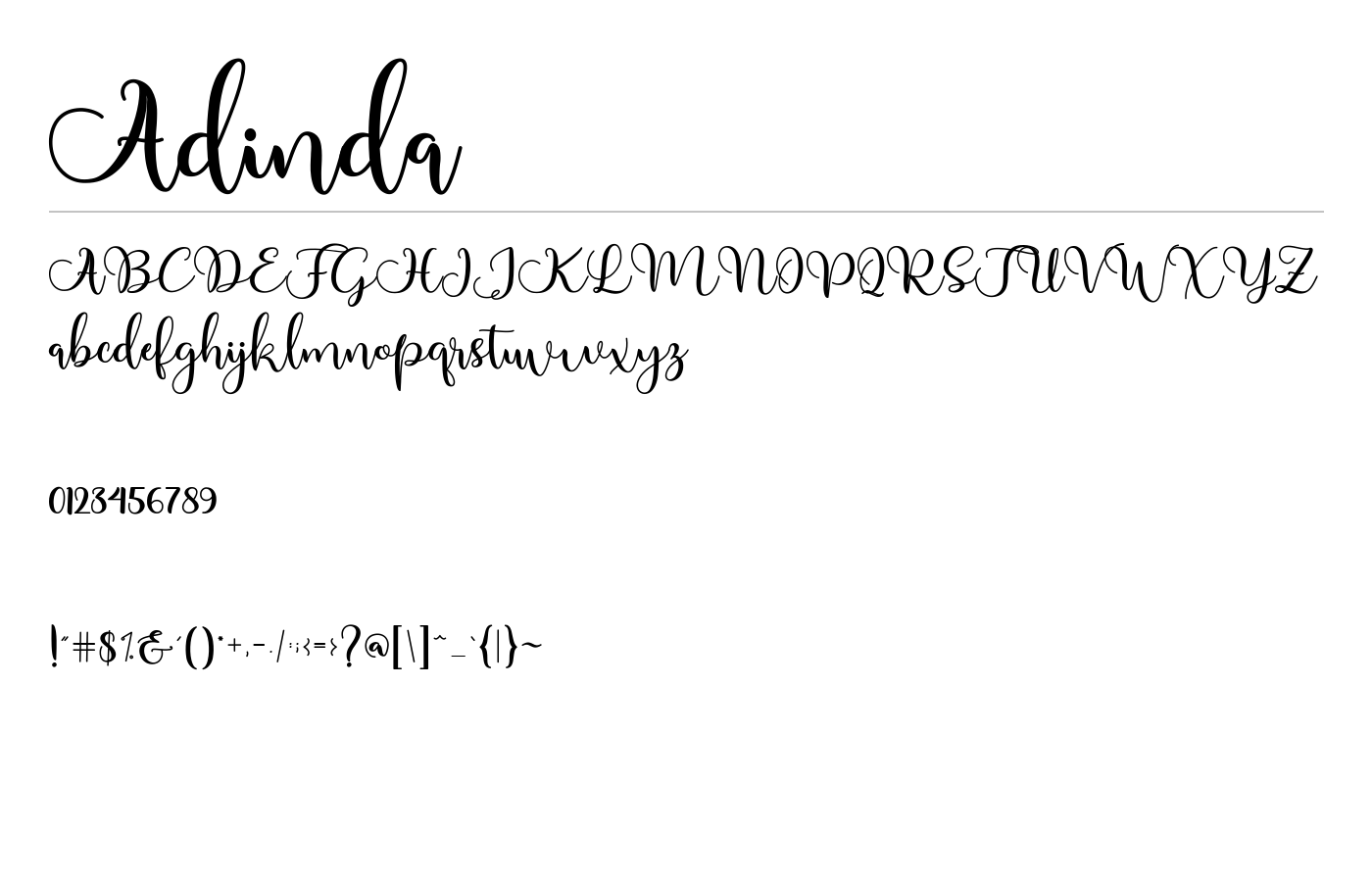
Adinda is an elegant script font characterized by fluid, graceful strokes and a smooth, handwritten feel. Its light weight and delicate curves make it perfect for adding a romantic or sophisticated touch to invitations, logos, and branding that call for a stylish, feminine flair. This font works best in display settings where its decorative letterforms can truly shine.
Adinda Font